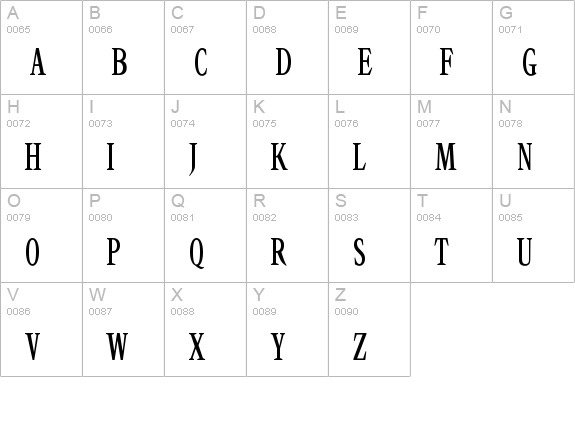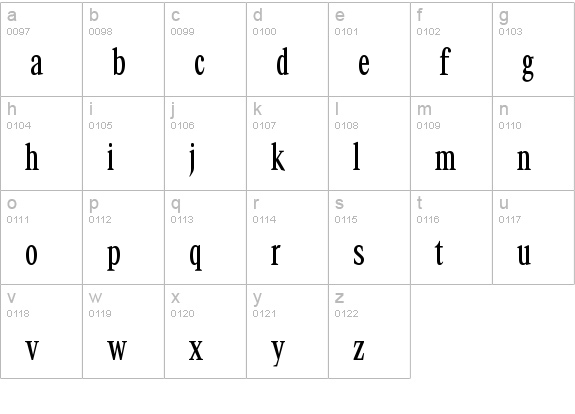
ExcaliburEF-Medium Font Details
ExcaliburEF-Medium is a balanced, medium-weight variant in the ExcaliburEF typeface family \xE2\x80\x94 well suited to sub-headlines, navigation, and balanced editorial work.
ExcaliburEF-Medium font is a versatile and elegant typeface that exudes sophistication and professionalism. With its balanced letterforms and clean lines, this font is perfect for a wide range of design projects, from branding and advertising to editorial and web design. The medium weight of ExcaliburEF-Medium strikes the perfect balance between boldness and readability, making it a great choice for both display and body text. What sets ExcaliburEF-Medium apart is that it is available for free download at FontsMarket.com. This means that you can easily access and use this high-quality font in your projects without any cost. Whether you're a seasoned designer looking to add a new font to your collection or a beginner in need of a reliable typeface, ExcaliburEF-Medium is a fantastic choice that won't break the bank. Download it today and elevate your designs with this timeless and versatile font.